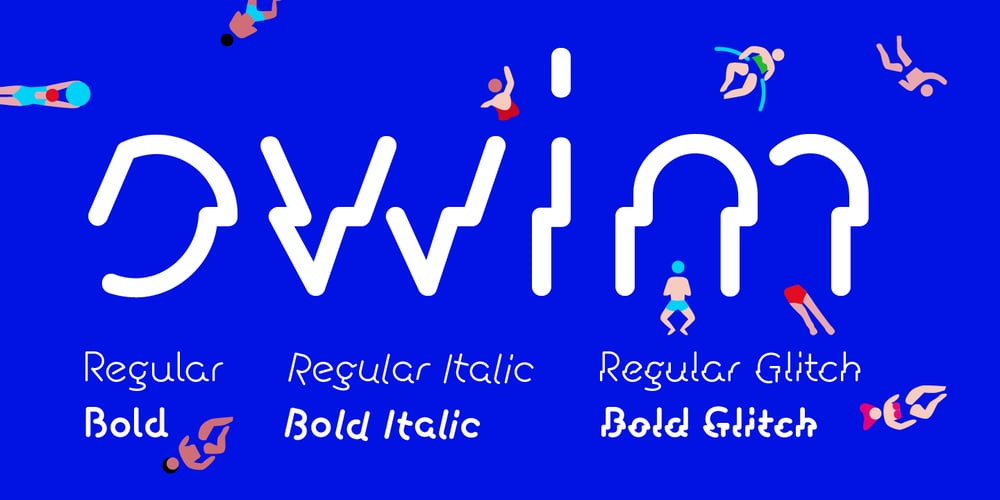
Swim Font Family was designed by Markus Strümpel and published by Designpiraten. Swim contains 6 styles and family package options. A typeface family inspired by water. The family comes with a text version of two weights and matching italics —Regular, Regular Italic, Bold and Bold Italic. In addition, both weights come with a characteristic “glitch” version wich makes the family outstanding and suitable for branding and visual communication projects. The fonts support 207 different languages.